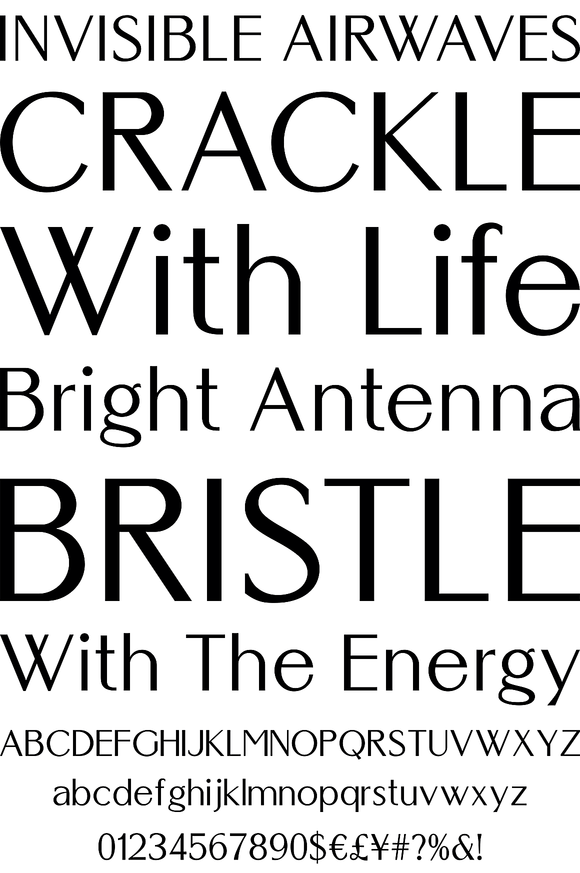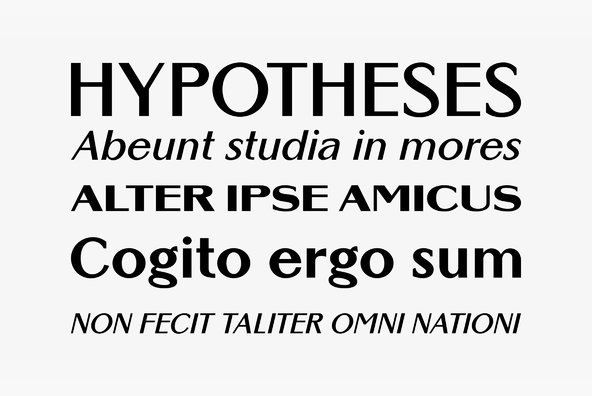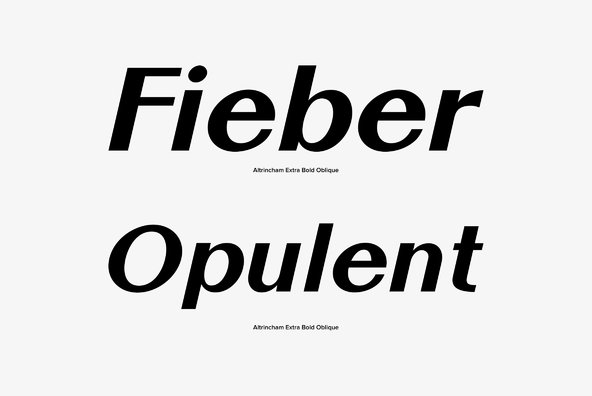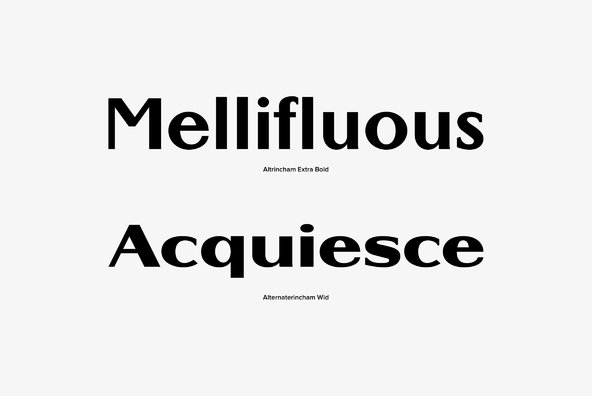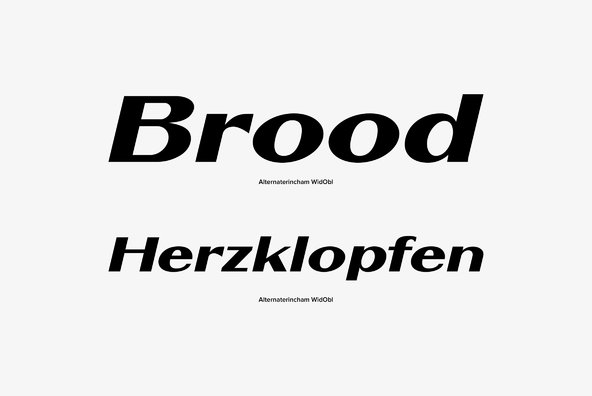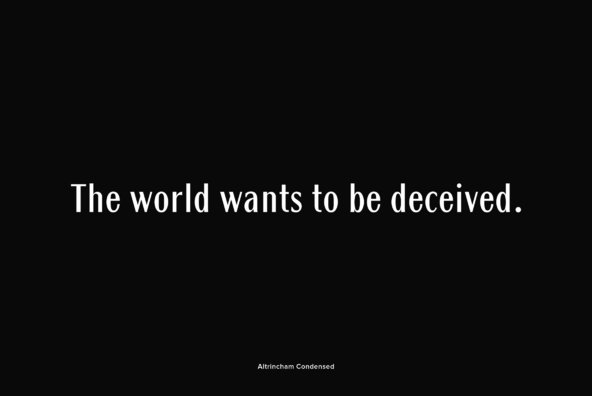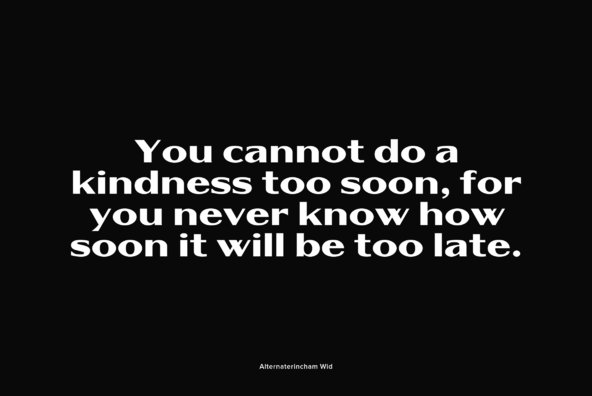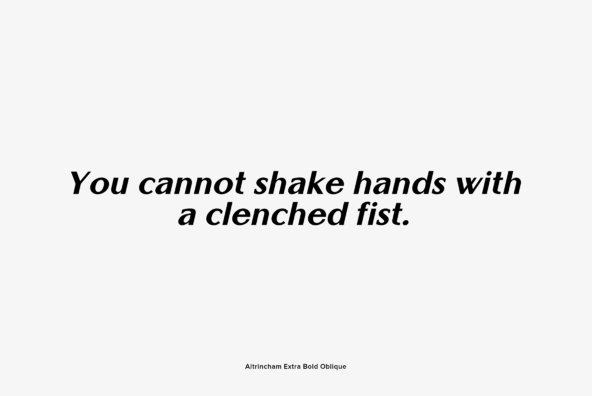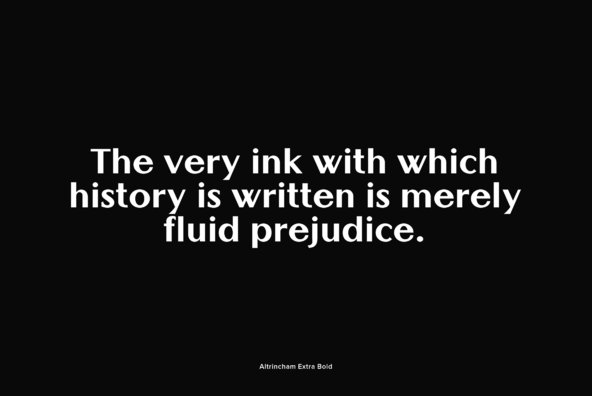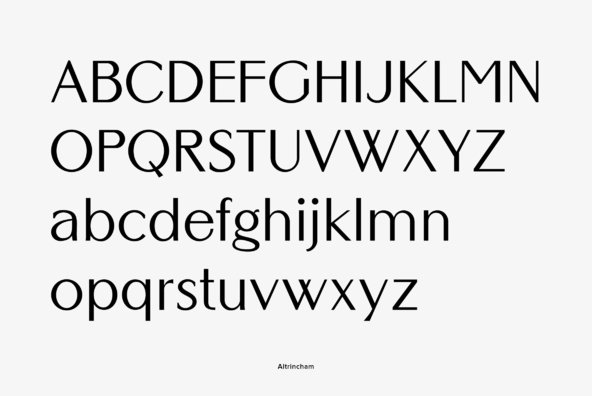
Altrincham
Designed by Coen Hofmann in 2003, Altrincham is a retro and elegant sans-serif design. Altrincham contains language support for West, East, Turkish, Baltic, Romanian, Cyrillic, and Greek.